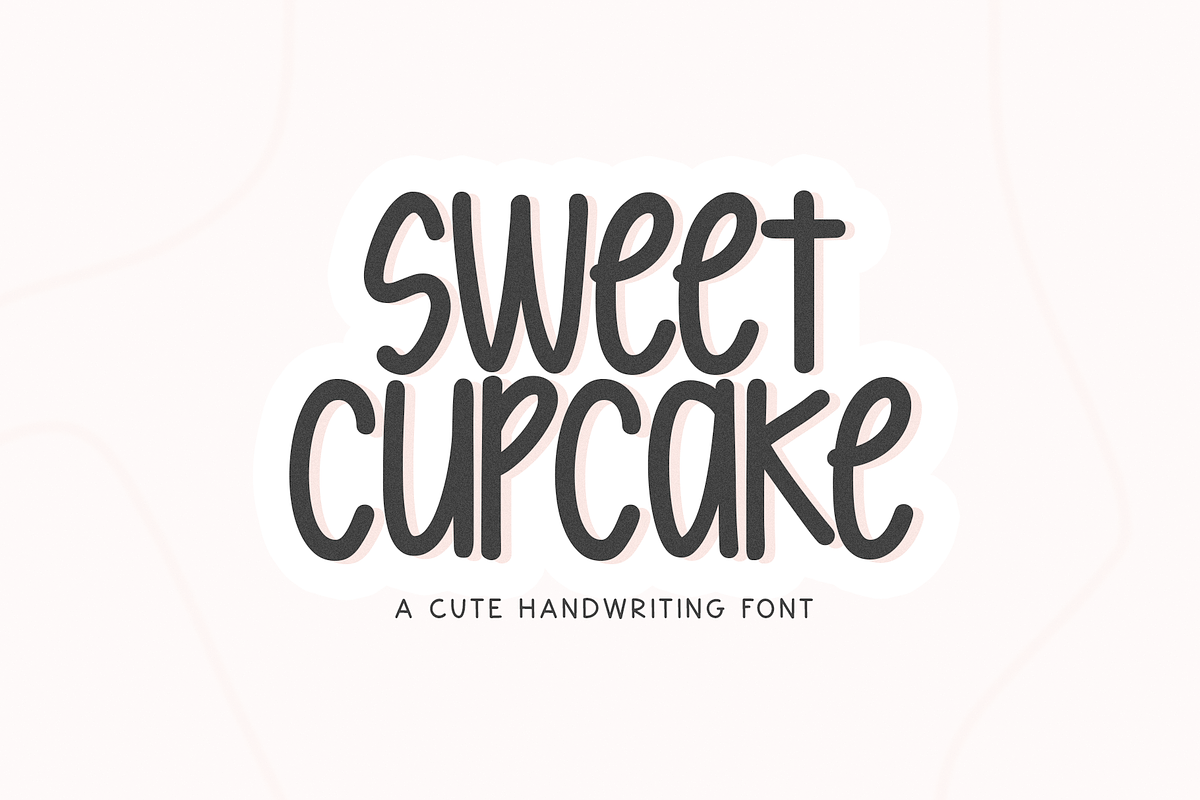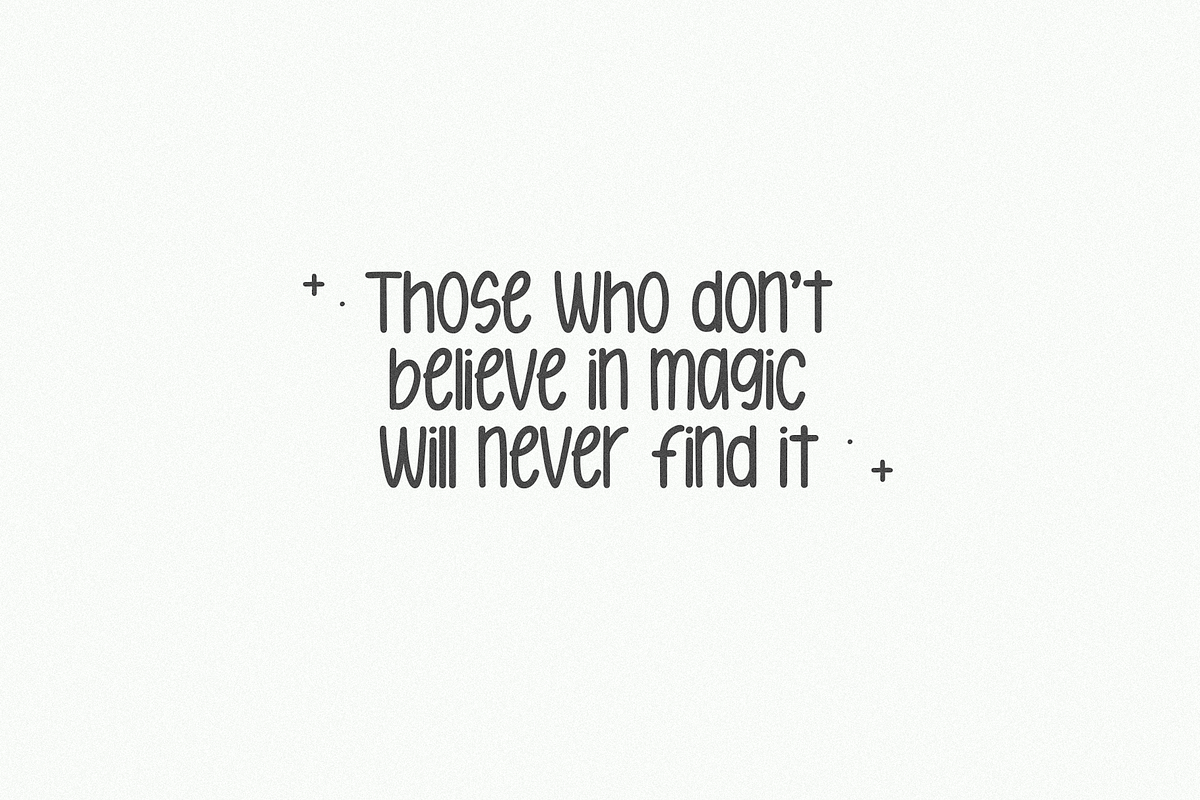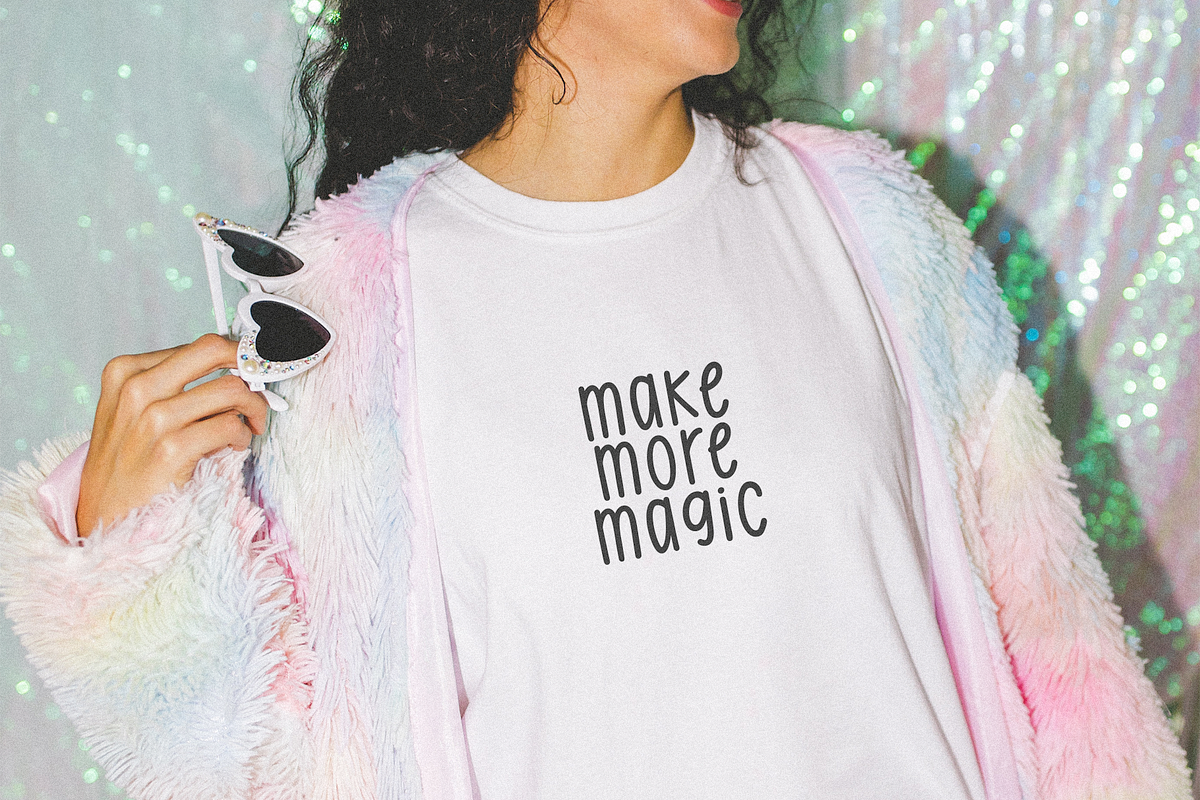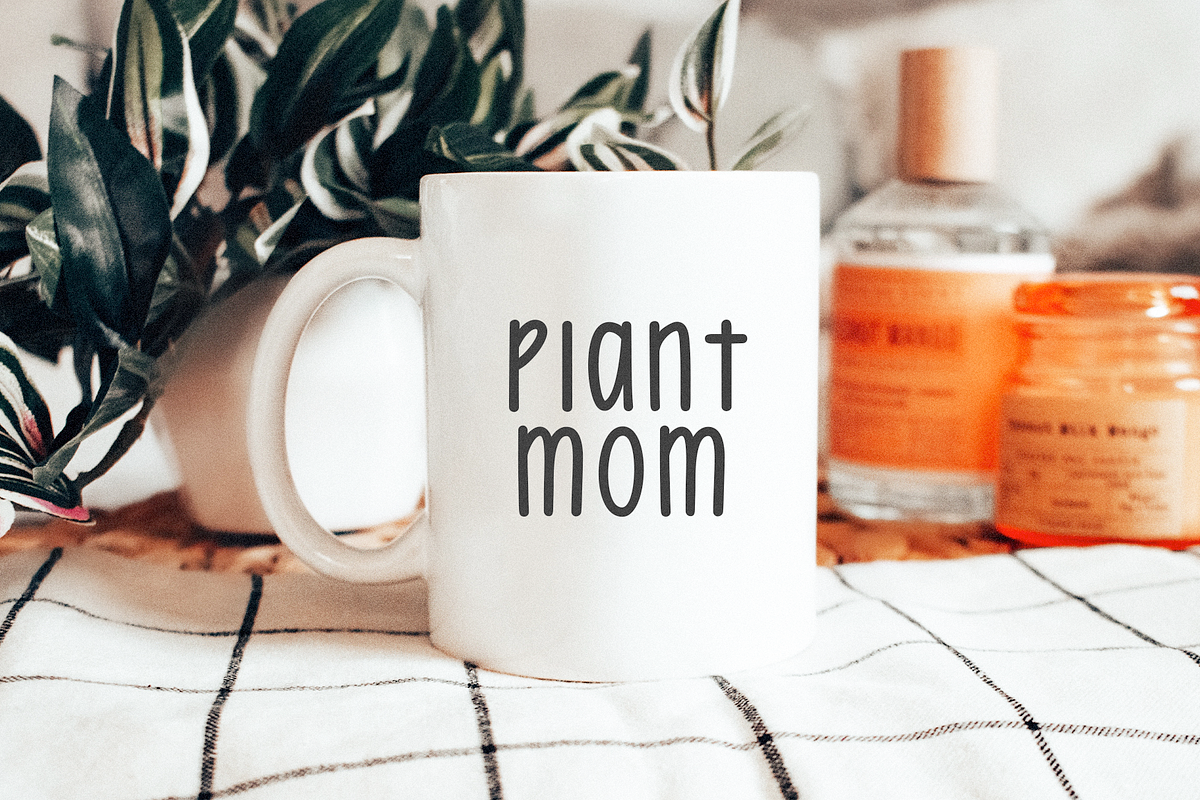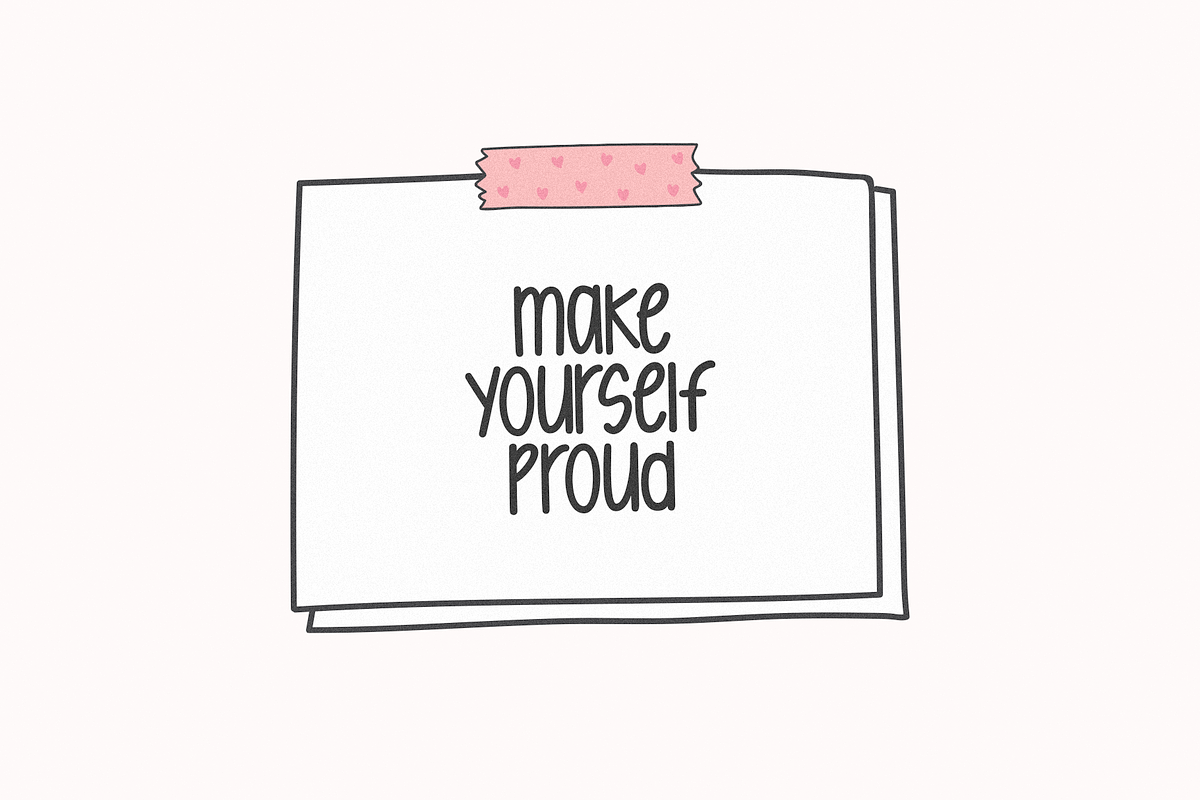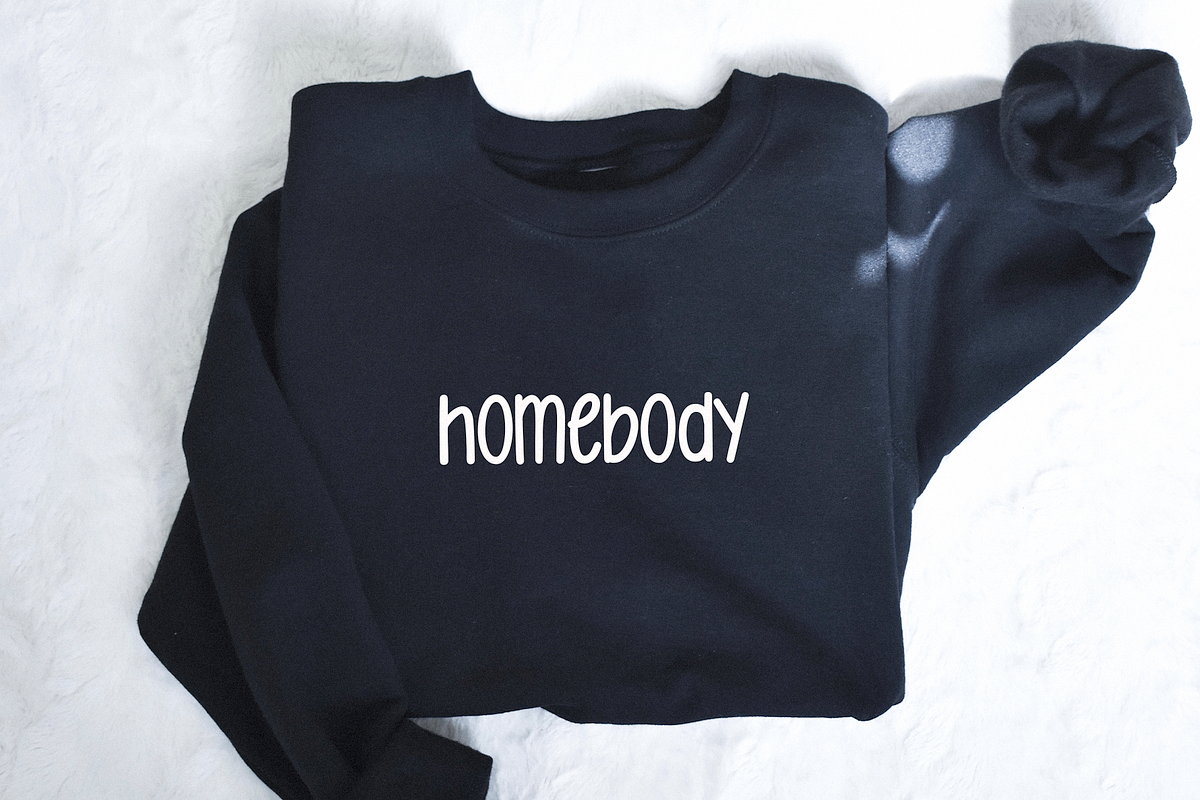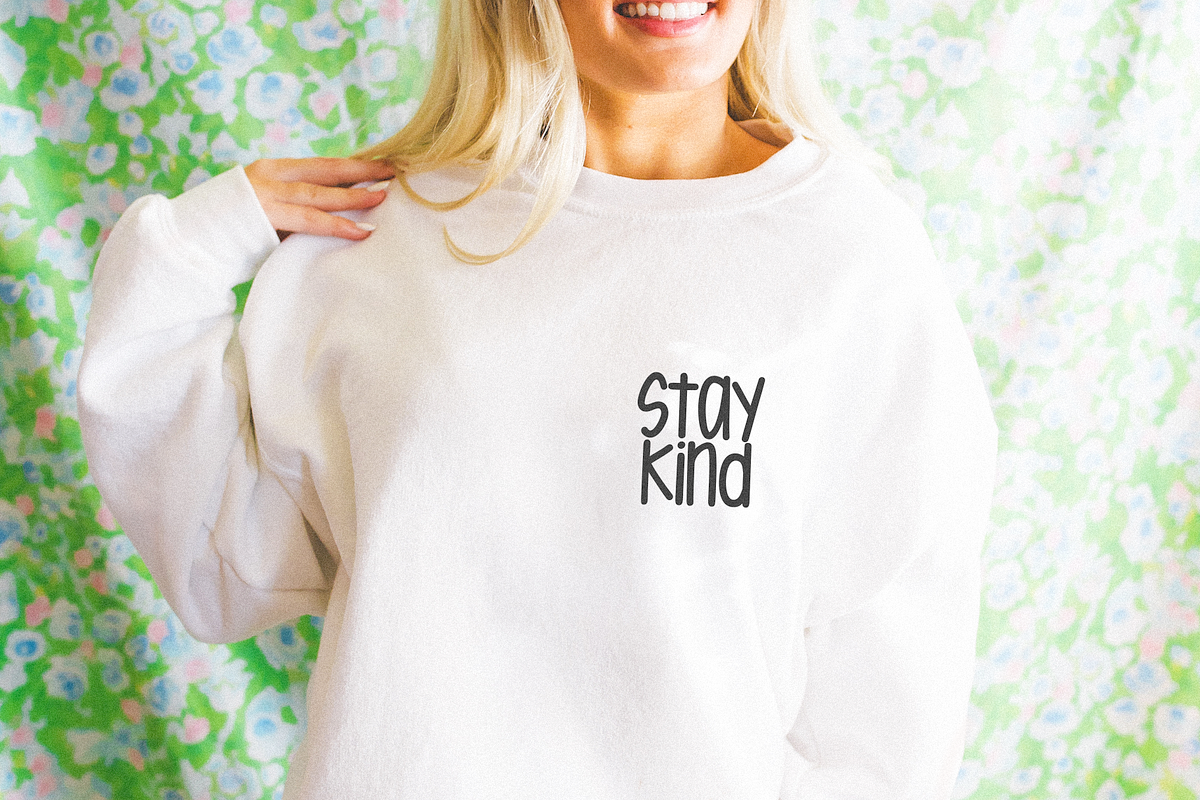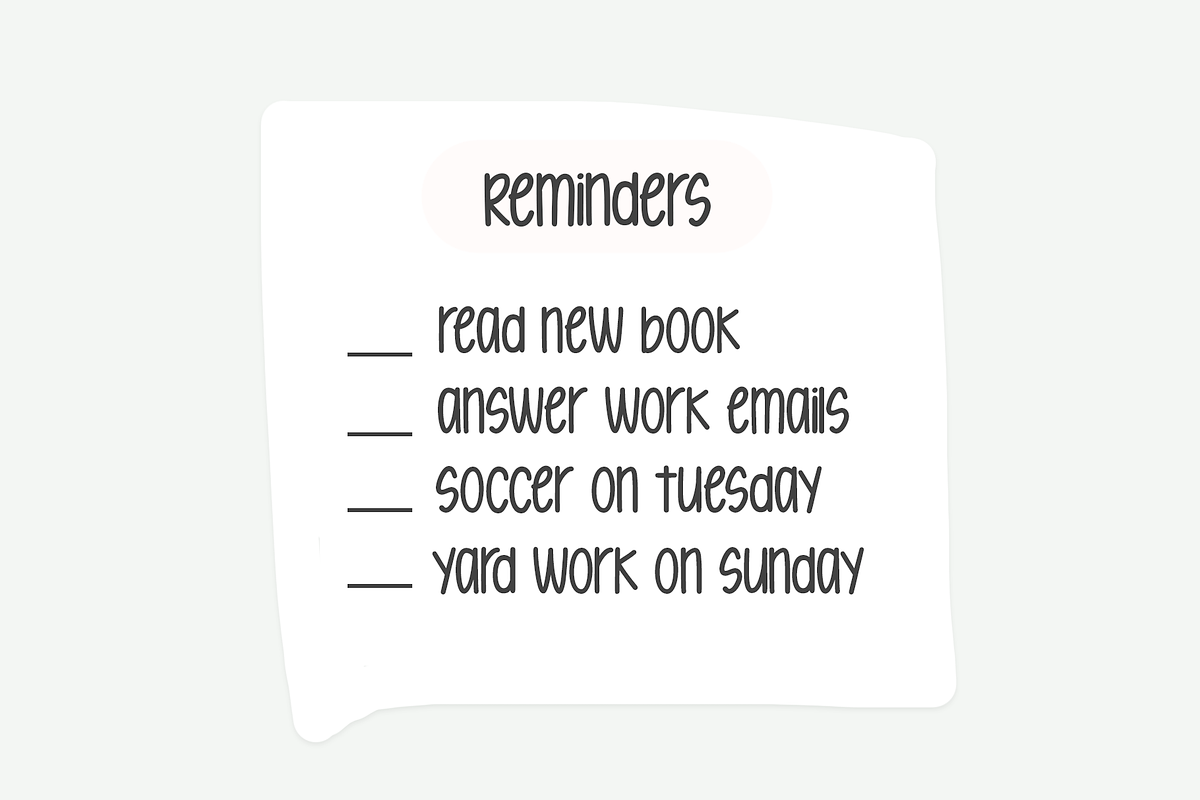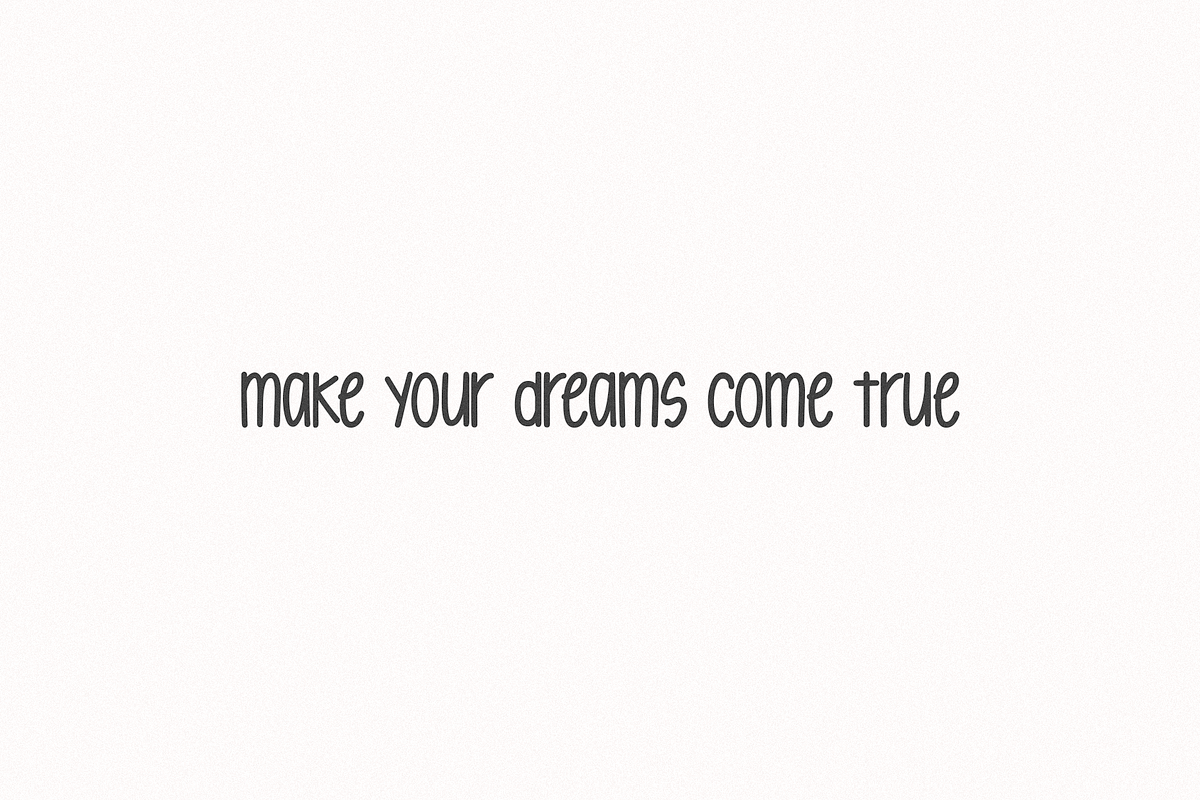
Sweet Cupcake | Cute Font
Sweet Cupcake is a cute handwritten font.
Use this font for shirts, logos, goodnotes, planners, stickers, procreate designs, instagram quotes, svg files and more!